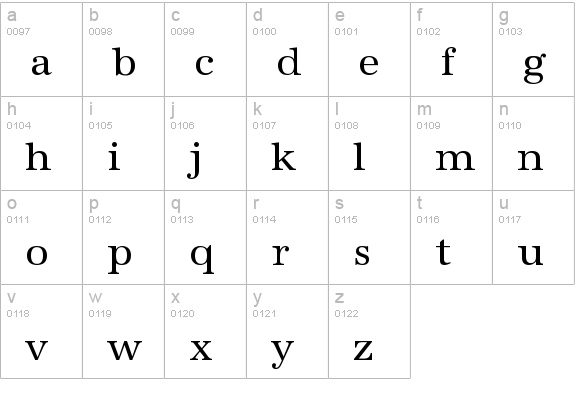
URWAntiquaT Font Details
URWAntiquaT is a timeless font that exudes elegance and sophistication. This classic typeface is perfect for adding a touch of traditional charm to any project. Its refined serifs and graceful curves make it a versatile choice for both print and digital designs. With its generous x-height and excellent legibility, URWAntiquaT ensures that your message is conveyed with clarity and style. Whether you're creating invitations, brochures, or editorial layouts, this font will elevate your design and captivate readers. What sets URWAntiquaT apart is not just its stunning aesthetic, but also its accessibility. It is freely available to download at FontsMarket.com, allowing designers of all backgrounds to utilize its beauty and versatility without any cost. This font is a testament to the power of creativity and the importance of making quality resources accessible to all. URWAntiquaT's extensive character set includes a wide range of diacritical marks, punctuation, and symbols, making it suitable for multilingual projects. Its robust nature ensures that it performs flawlessly across various platforms and applications. In addition to its visual appeal, URWAntiquaT also offers exceptional readability, making it an excellent choice for body text. Its carefully crafted letterforms ensure that each word flows effortlessly, enhancing the overall reading experience. Whether you're designing for print or digital, URWAntiquaT is the perfect companion for bringing a touch of timeless beauty to your projects. Download this extraordinary font for free at FontsMarket.com and unlock a world of creative possibilities.